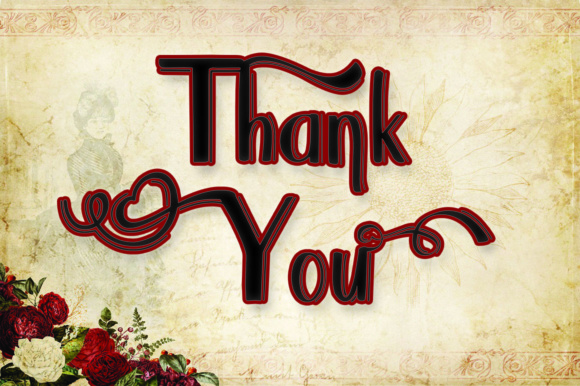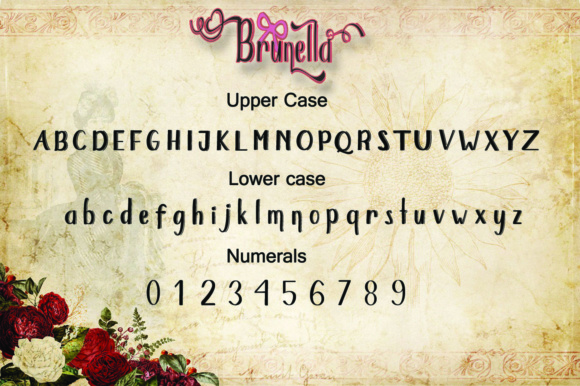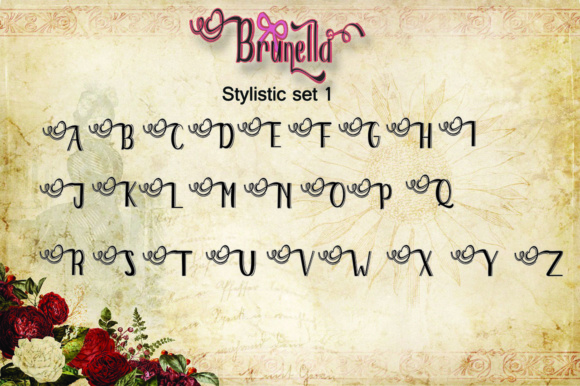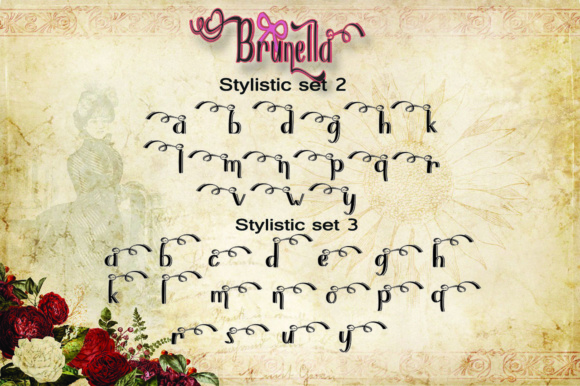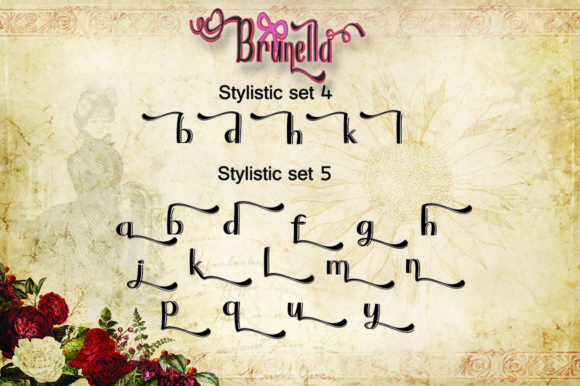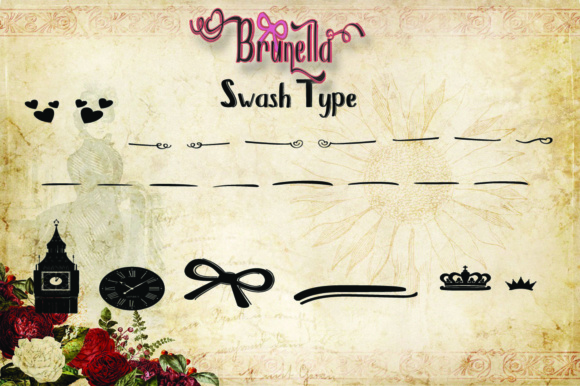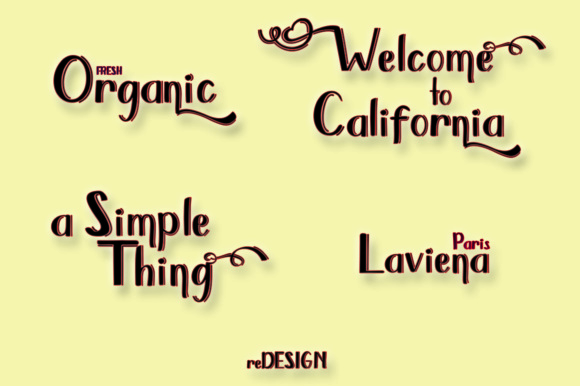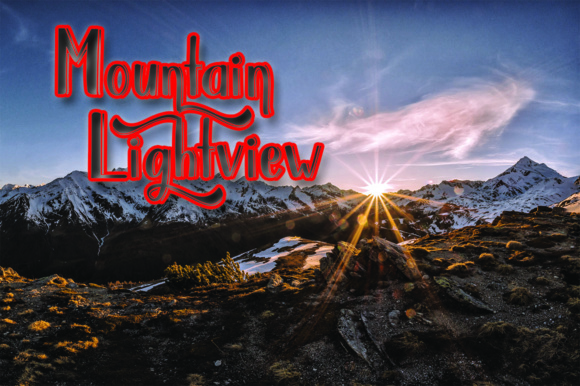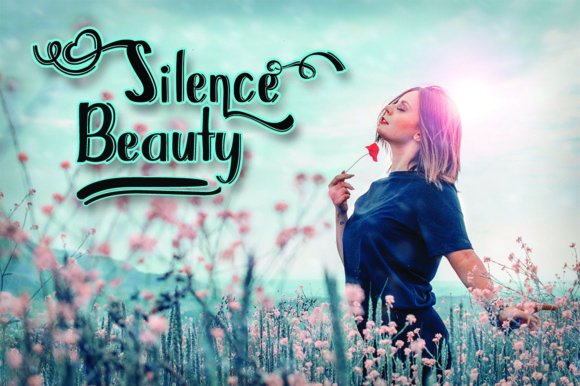
Brunella Font
About Brunella Font
Brunella is an unique handwritten typeface. Brunella can make a beautiful and bold character font for various projects such as: logos, photos, posters and much more! Brunella includes many stylistic sets.